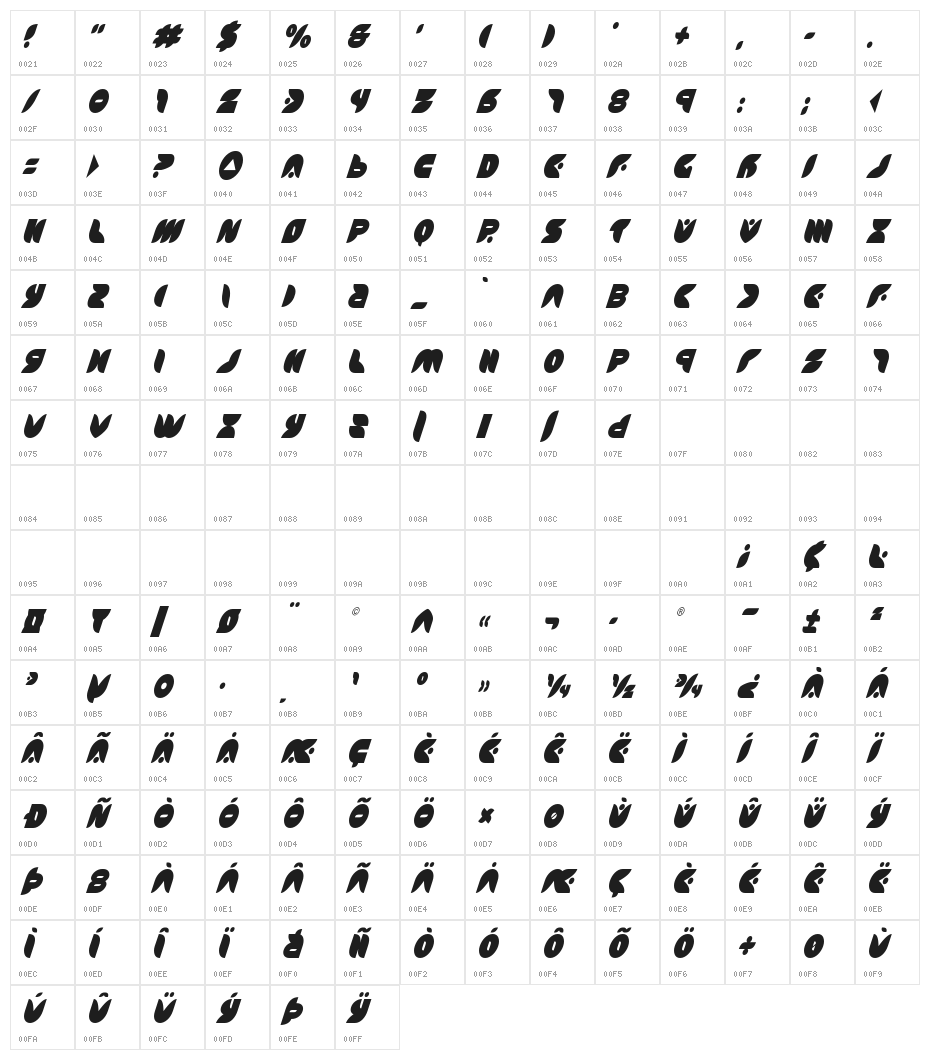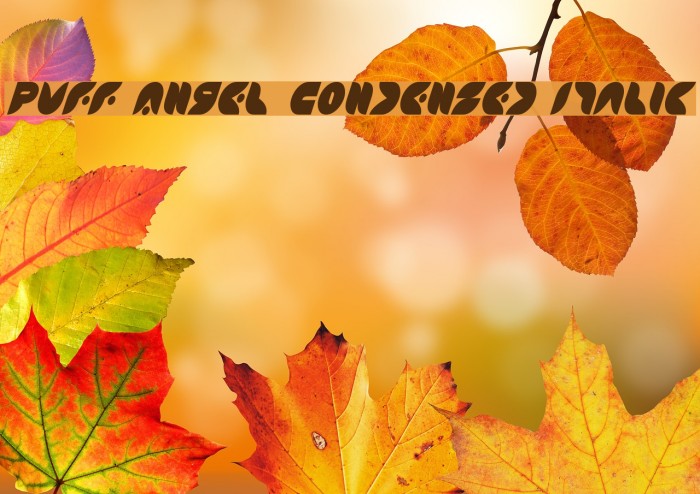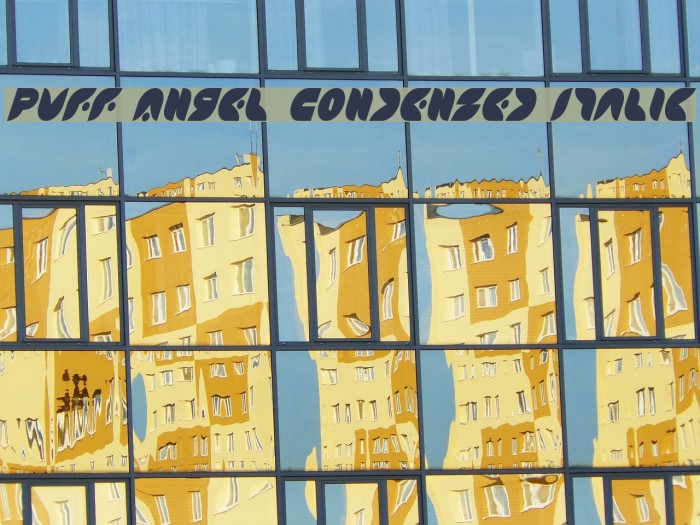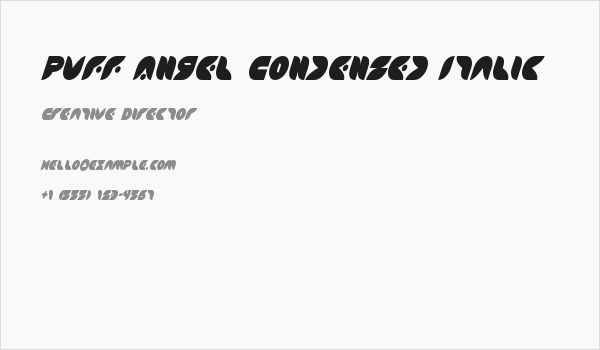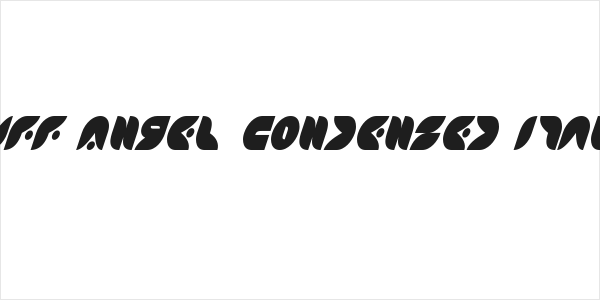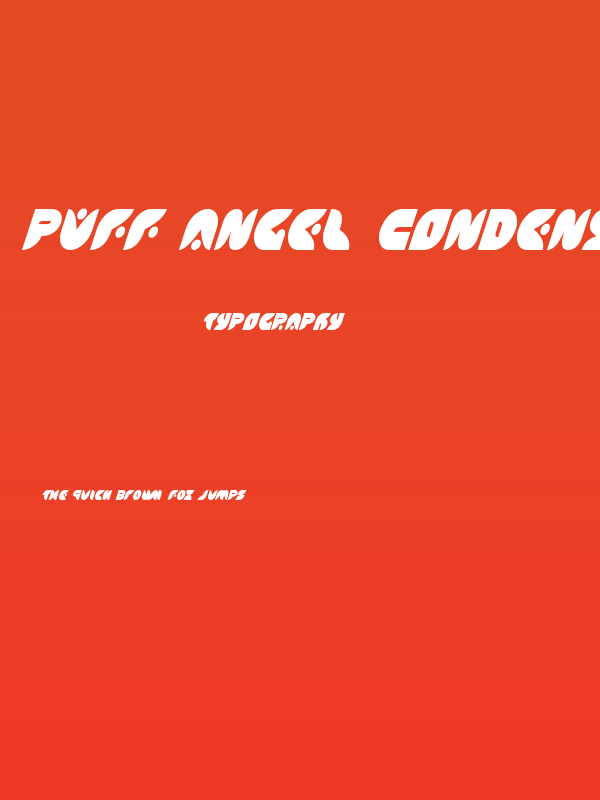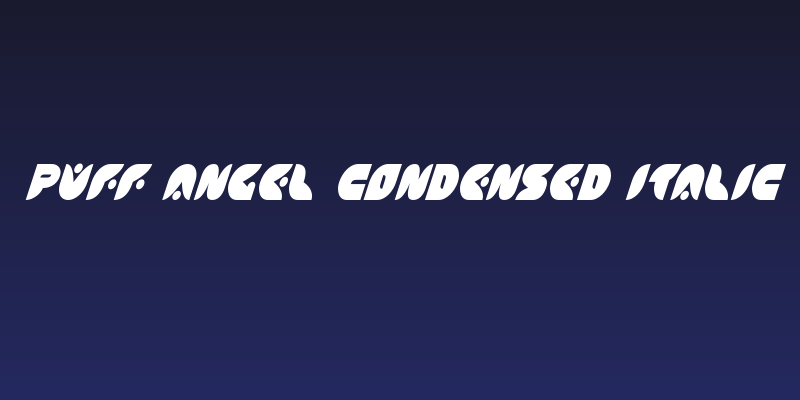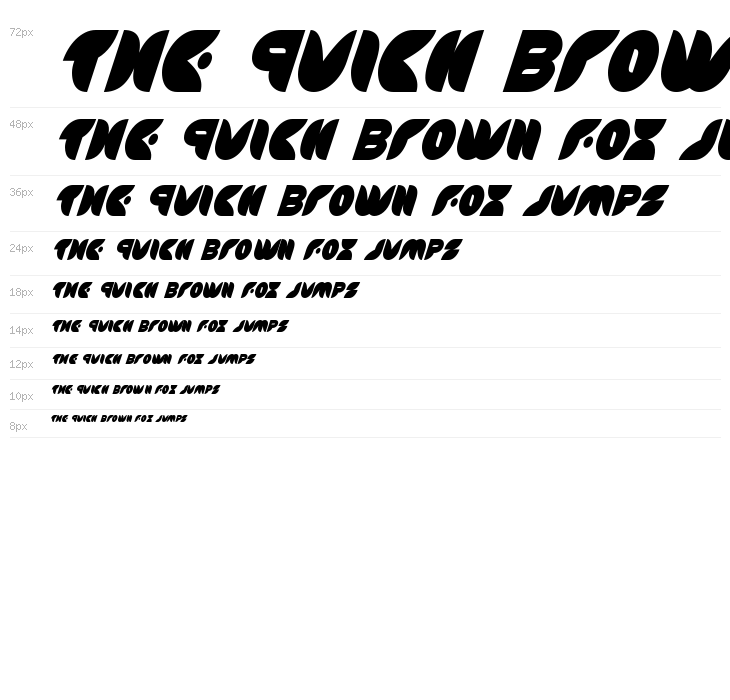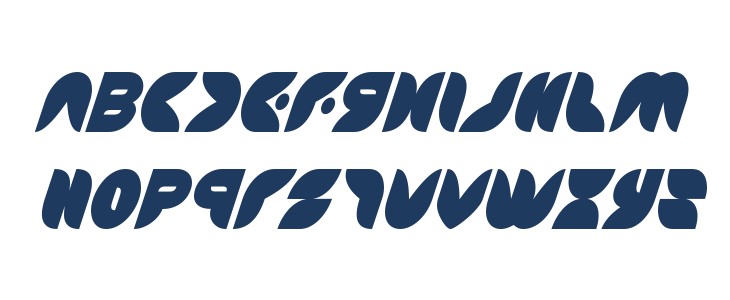
Puff Angel Condensed Italic Font
Puff Angel Condensed Italic Description
This font features a bold and playful design with a condensed and italicized style. The characters are uniquely shaped, with rounded edges and a flowing, dynamic appearance. The boldness of the font gives it a strong presence, while the condensed form allows for efficient use of space. The italic slant adds a sense of motion and creativity, making it stand out in any design. The font includes both uppercase and lowercase letters, numerals, and a variety of special characters, all maintaining the same distinctive style. Its high contrast between thick and thin strokes enhances readability while adding a dramatic flair.
| Proposed Projects | Ideal for creative projects such as posters, logos, and branding materials that require a bold and eye-catching typeface. |